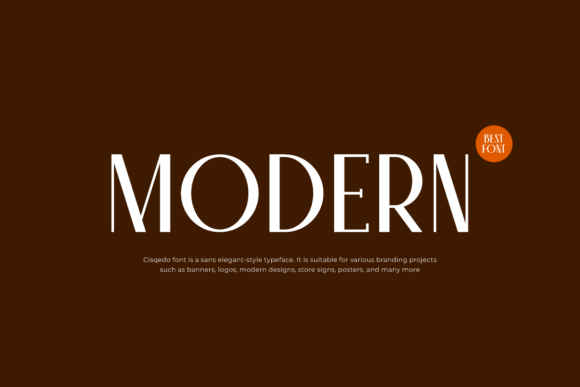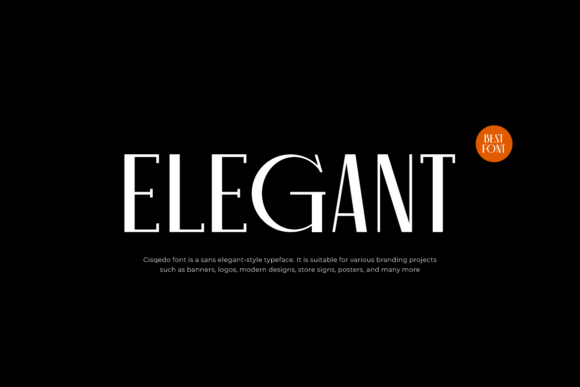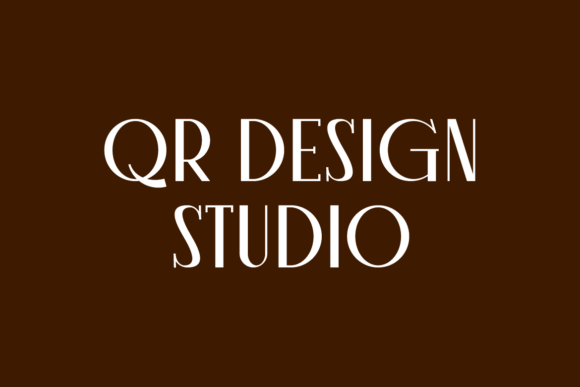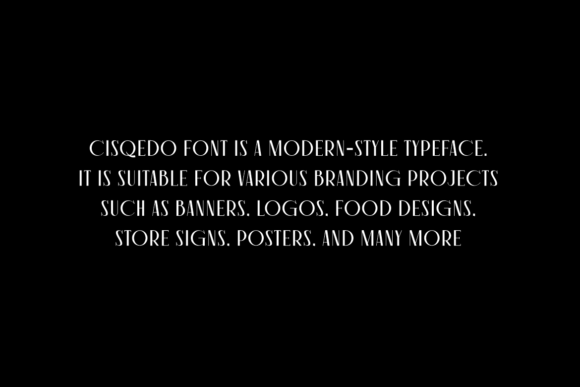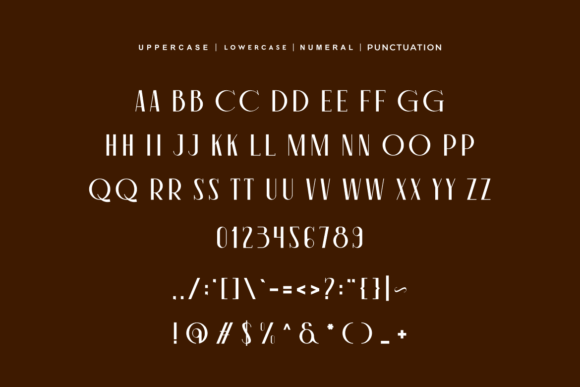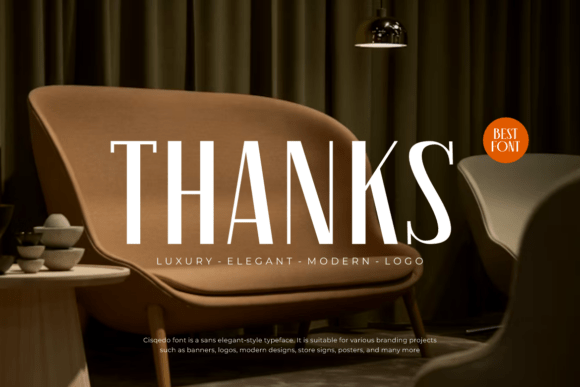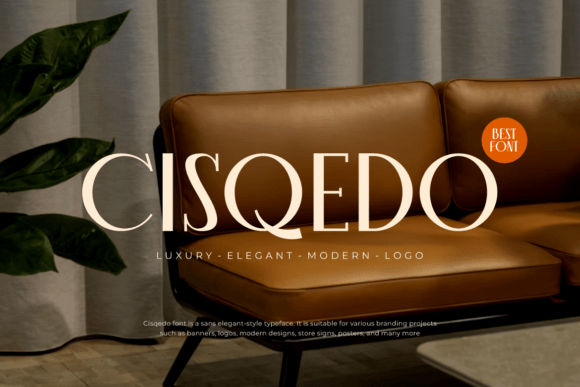
Cisqedo Font: A Bold and Authentic Display Typeface for Your Branding Needs
In the world of typography, a font can make or break a design. When it comes to creating a lasting impression, a bold and authentic display typeface is essential. This is where Cisqedo Font comes in – a stunning and versatile font perfect for various branding projects, including logos, sports designs, and more. In this article, we’ll dive into the features and benefits of Cisqedo Font, and explore how it can elevate your design game.
What is Cisqedo Font?
Cisqedo Font is a bold and authentic display typeface designed to make a statement. Its unique and eye-catching design makes it perfect for headlines, titles, and short paragraphs of text. The font is available in two formats: Cisqedo.OTF and Cisqedo.TTF, ensuring compatibility with a wide range of design software.
Key Features of Cisqedo Font
- Bold and Authentic Design: Cisqedo Font boasts a bold and authentic design that commands attention. Its unique character set makes it perfect for creating striking headlines and titles.
- Versatile and Adaptable: This font is incredibly versatile and can be used in a wide range of contexts, from logos and sports designs to posters and packaging.
- Easily Readable: Despite its bold design, Cisqedo Font is surprisingly easy to read, making it perfect for short paragraphs of text and captions.
Perfect for Branding Projects
Cisqedo Font is specifically designed for branding projects, making it an excellent choice for:
- Logo Design: Create a lasting impression with a bold and authentic logo that showcases your brand’s personality.
- Sports Designs: Add a touch of energy and excitement to your sports designs, from jerseys to posters and social media graphics.
- Posters and Flyers: Make your posters and flyers stand out with Cisqedo Font’s bold and eye-catching design.
- Packaging Design: Elevate your packaging design with a font that’s both stylish and functional.
Why Choose Cisqedo Font?
With so many fonts available, why choose Cisqedo Font? Here are just a few reasons:
- Unique Design: Cisqedo Font boasts a unique and authentic design that sets it apart from other fonts.
- Easy to Use: Cisqedo Font is incredibly easy to use, even for designers who are new to typography.
- Versatile: This font can be used in a wide range of contexts, from branding projects to personal designs.
In conclusion, Cisqedo Font is an exceptional bold and authentic display typeface perfect for various branding projects. Its unique design, versatility, and high-quality format make it an excellent choice for designers and crafters. Whether you’re creating a logo, sports design, or packaging, Cisqedo Font is sure to make a lasting impression. So why wait? Download Cisqedo Font today and take your designs to the next level!